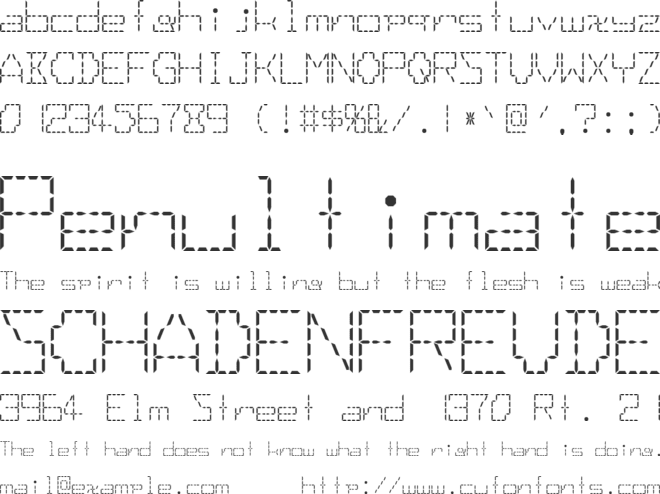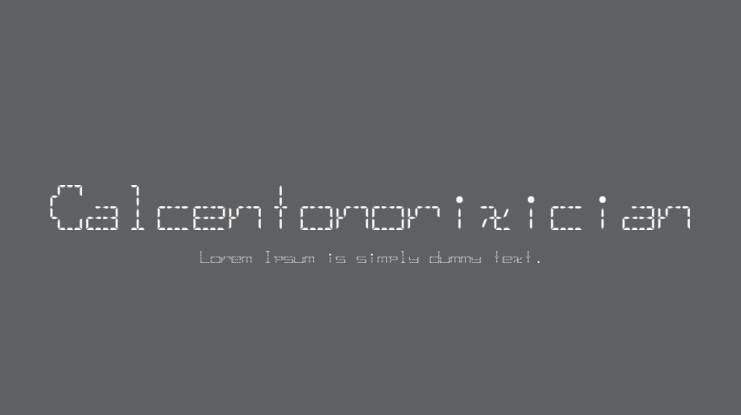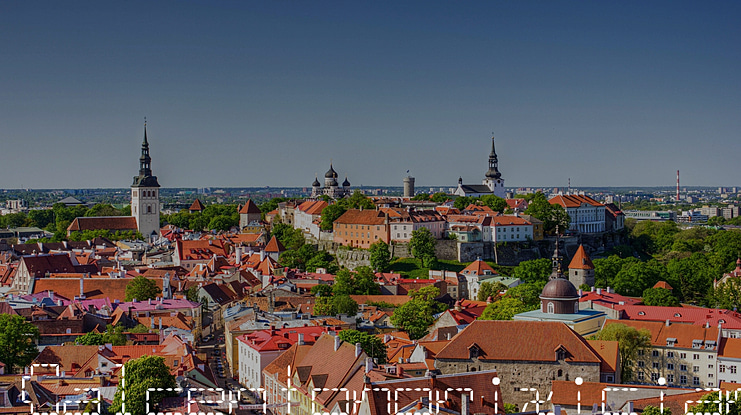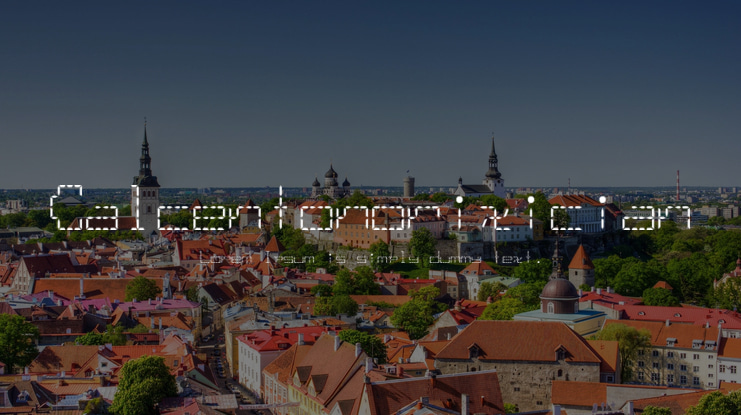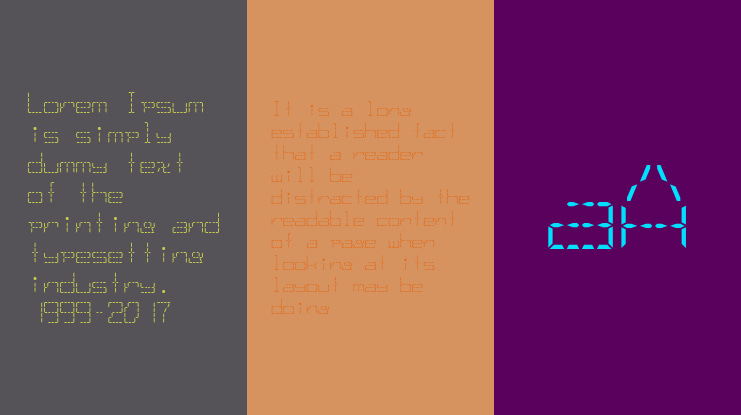
Calcentonorixician Font
Bryndan Meyerholt
Calcentonorixician is a 56-segment font which allows for more detail than a 16-segment display. The dates in the changelog.txt file are according to EST.